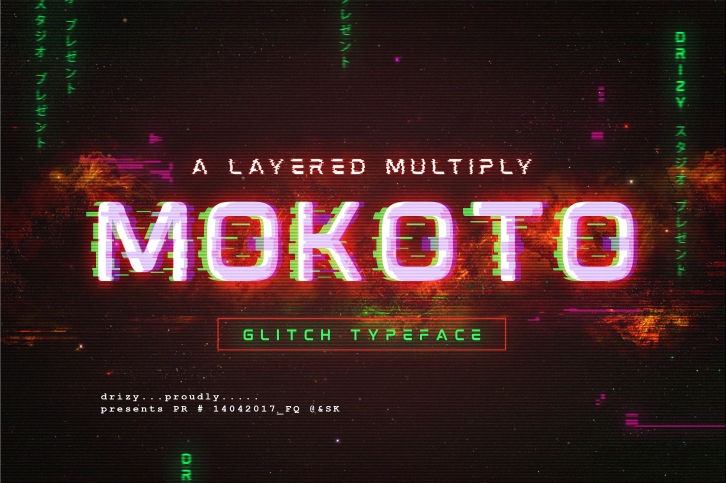
Mokoto Glitch Typeface is a great font that was designed by drizy studio. Imagine the amount of combinations you can create using this font! The archive is 7.68 MB and it was released on April 28, 2017. Mokoto Glitch Typeface looks beautiful on wedding invitations, greeting cards, logos, posters, labels, t-shirt designs, logos, business cards and is perfect for use in ink or watercolor works, fashion, magazines, packaging and food menus, children's books and more!